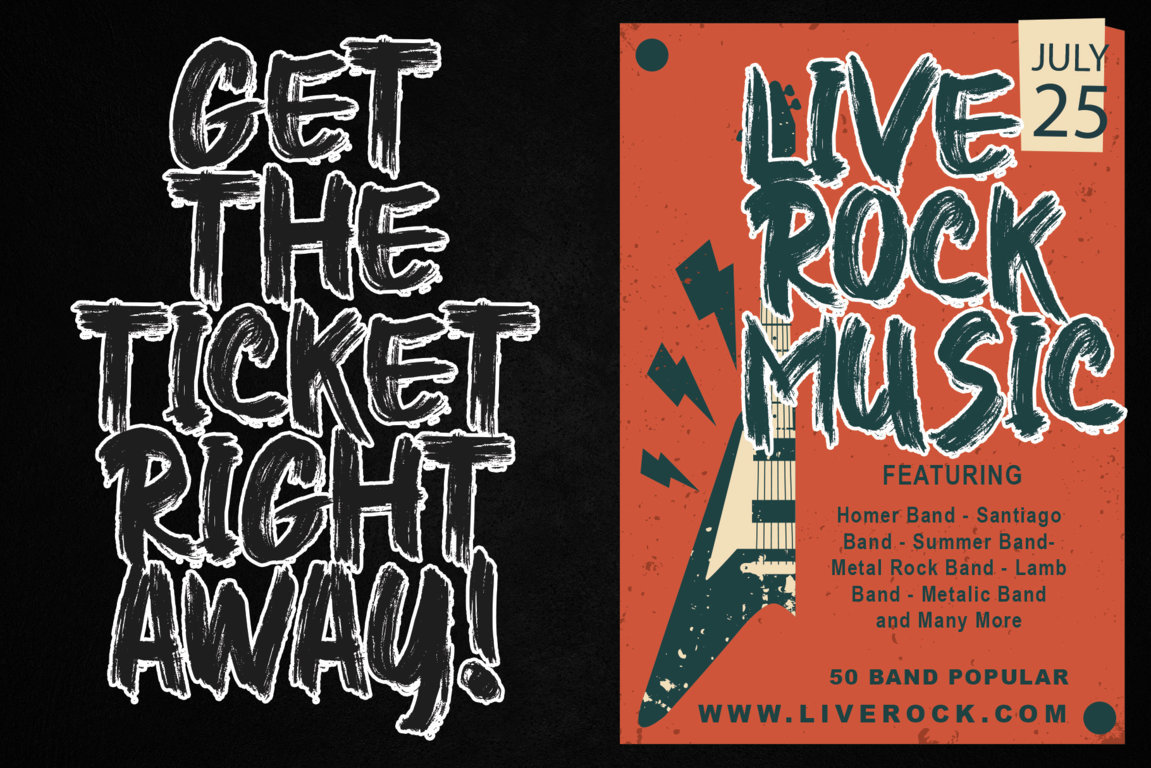
Higher Jump
Embark on a captivating design journey with Higher Jump, a font that embraces the untamed beauty of a natural dry brush. With its mesmerizing appearance and effortless flow, this font possesses the power to elevate your designs to new heights. Unlock a world of style and sophistication as you adorn logos, advertisements, branding materials, posters, movies, social media posts, YouTube channels, and more with the irresistible allure of Higher Jump. Every curve and stroke exudes strength and character, making it an ideal choice for projects that require a bold and impactful touch. Embrace the versatility of this font, as it effortlessly adapts to any creative endeavor, infusing it with a distinct charm. With the inclusion of PUA code, accessing an array of captivating glyphs and captivating swashes is a breeze. Let Higher Jump be your artistic companion as you explore the limitless possibilities of design and leave an indelible impression on your audience.
• Support multilingual; ä ö ü Ä Ö Ü ß ¿ ¡
• Numerals & Punctuation
• lowercase and uppercase letters
• Ligature